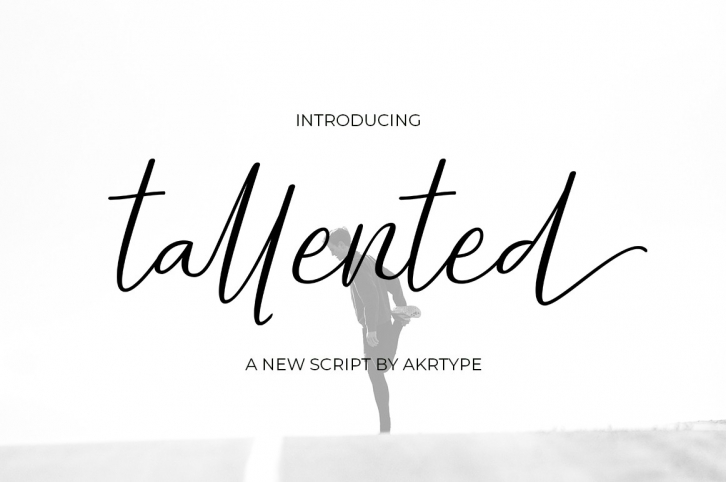
tallented script is a gorgeous font that was realeased on February 18, 2018. The font can be used in many style contexts and design environments. Perfect for invitations, magazines, websites, logos, and more! It was designed by akrtype and the file size is 17.28 MB. Thanks for checking out this font!